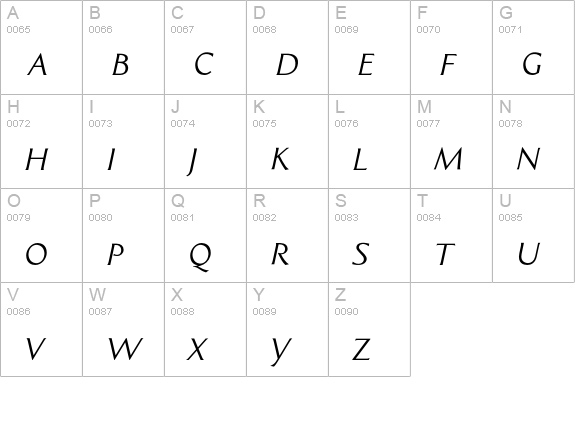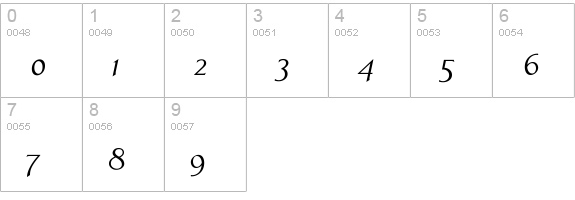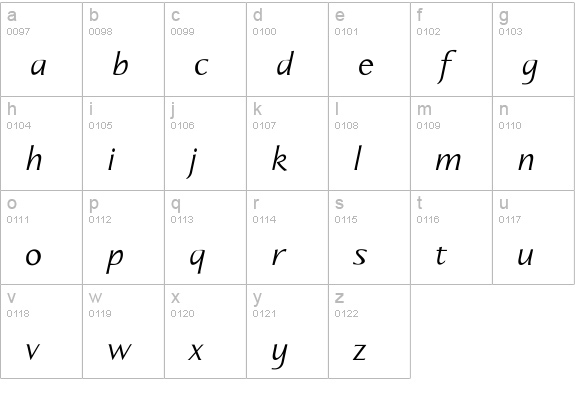
Aperto RegularItalic is a stylish and modern font that exudes elegance and sophistication. The italicized version adds a touch of flair and uniqueness to any design project. With its clean lines and smooth curves, this font is perfect for creating eye-catching headlines, titles, and branding materials. The best part is that Aperto RegularItalic is available for free download at FontsMarket.com. Whether you're working on a personal or commercial project, you can easily access this font to elevate your designs. Don't miss out on the opportunity to enhance your work with this versatile and visually appealing typeface. Download Aperto RegularItalic now and add a touch of creativity to your projects.